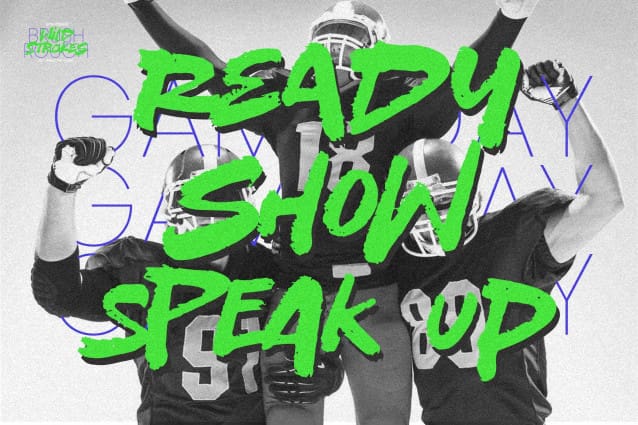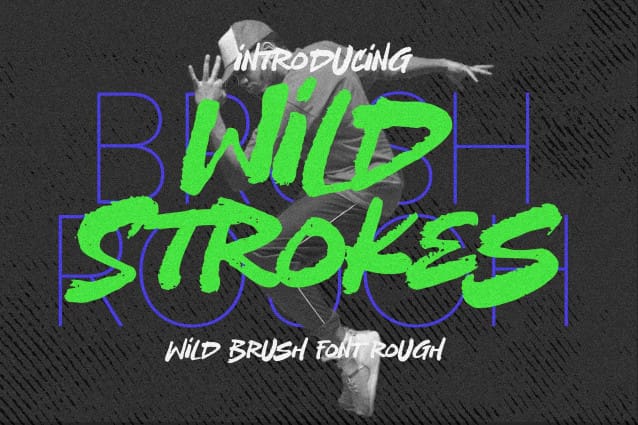
Wild Strokes Font
Wild Strokes Font – This is a Wild Brush Font Rough, with slab drawing and crafted style, this font is perfect for making a strong statement in your designs.
Add the bold and authentic character of this Font to your next project and capture the essence of the minimalist aesthetic.